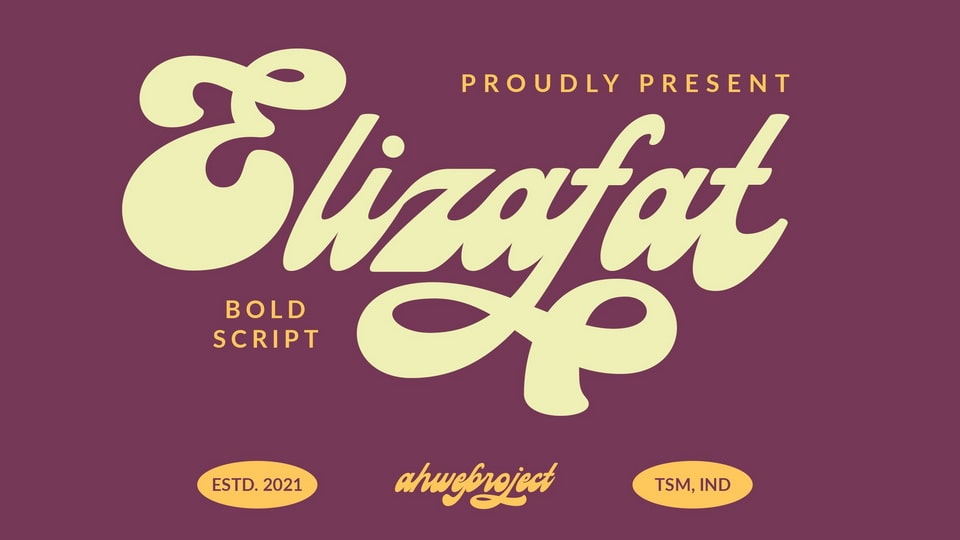
Download Elizafat font, a gorgeous and bold handwritten typeface, crafted to give your headlines and logotype projects a stylish touch. Elizafat font reads as strong, confident, and dynamic and can add tons of nostalgic character to your designs.